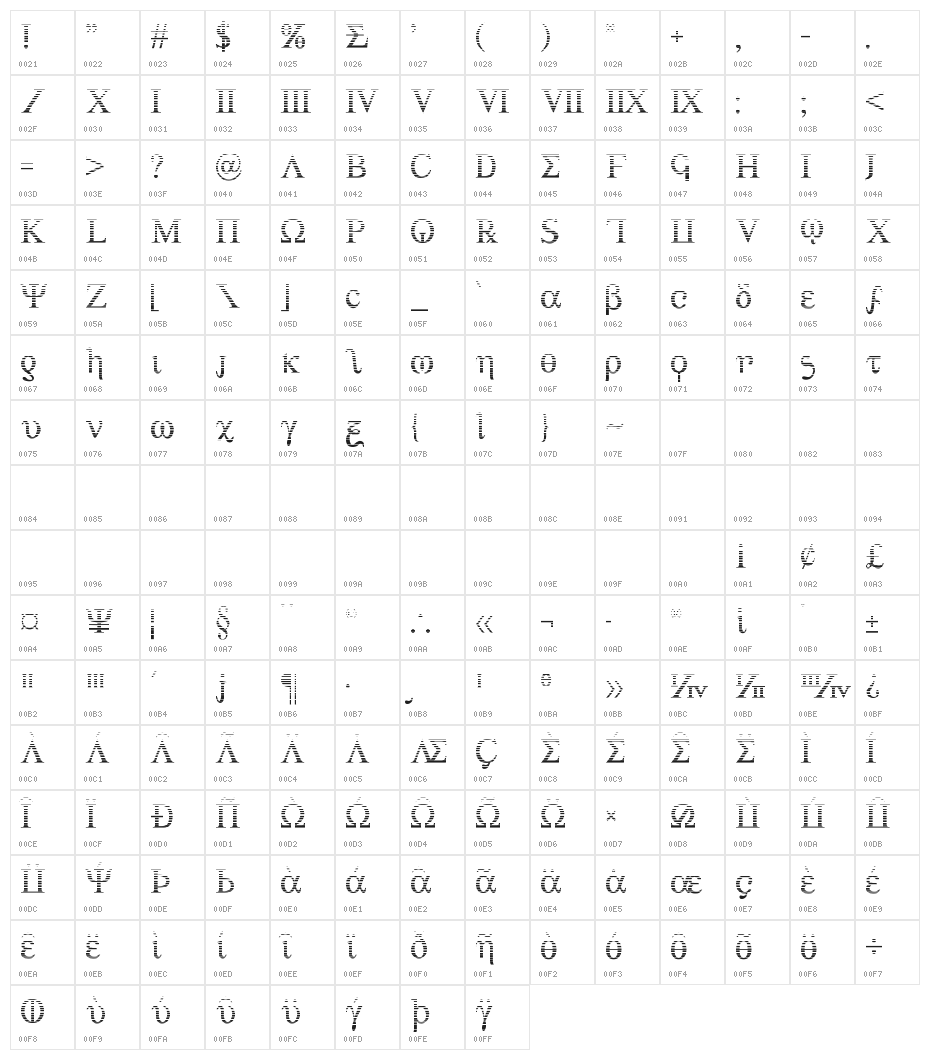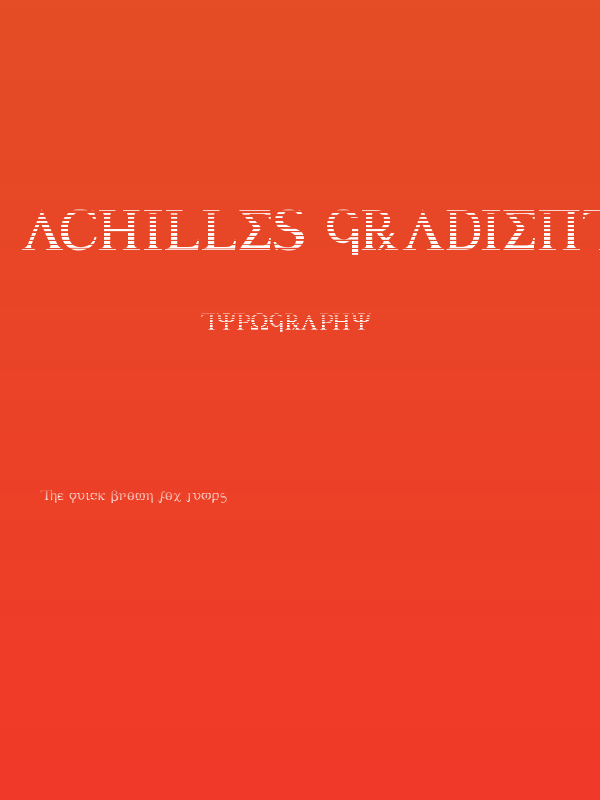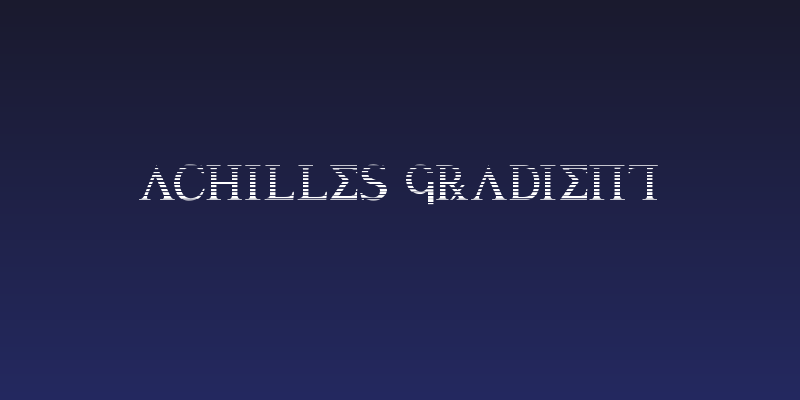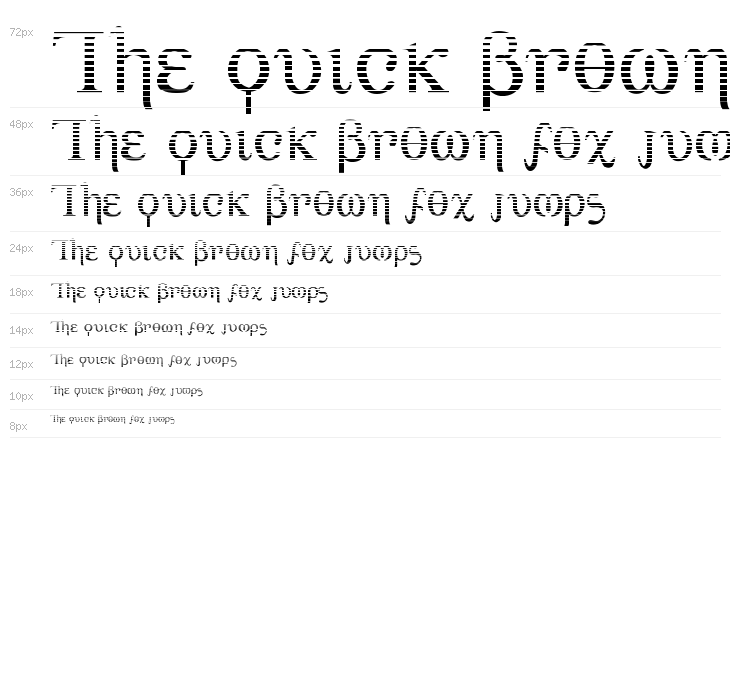
Achilles Gradient Font
Achilles Gradient Description
This font features a distinctive gradient pattern across each character, creating a unique visual effect. The uppercase letters are bold and structured, with a slight serif influence, giving them a classic yet modern appearance. The lowercase letters maintain a consistent style, with smooth curves and a balanced weight. The numbers are clear and legible, matching the overall aesthetic. Special characters are well-integrated, ensuring versatility in various design contexts. The gradient effect adds depth and dimension, making this font suitable for eye-catching designs.